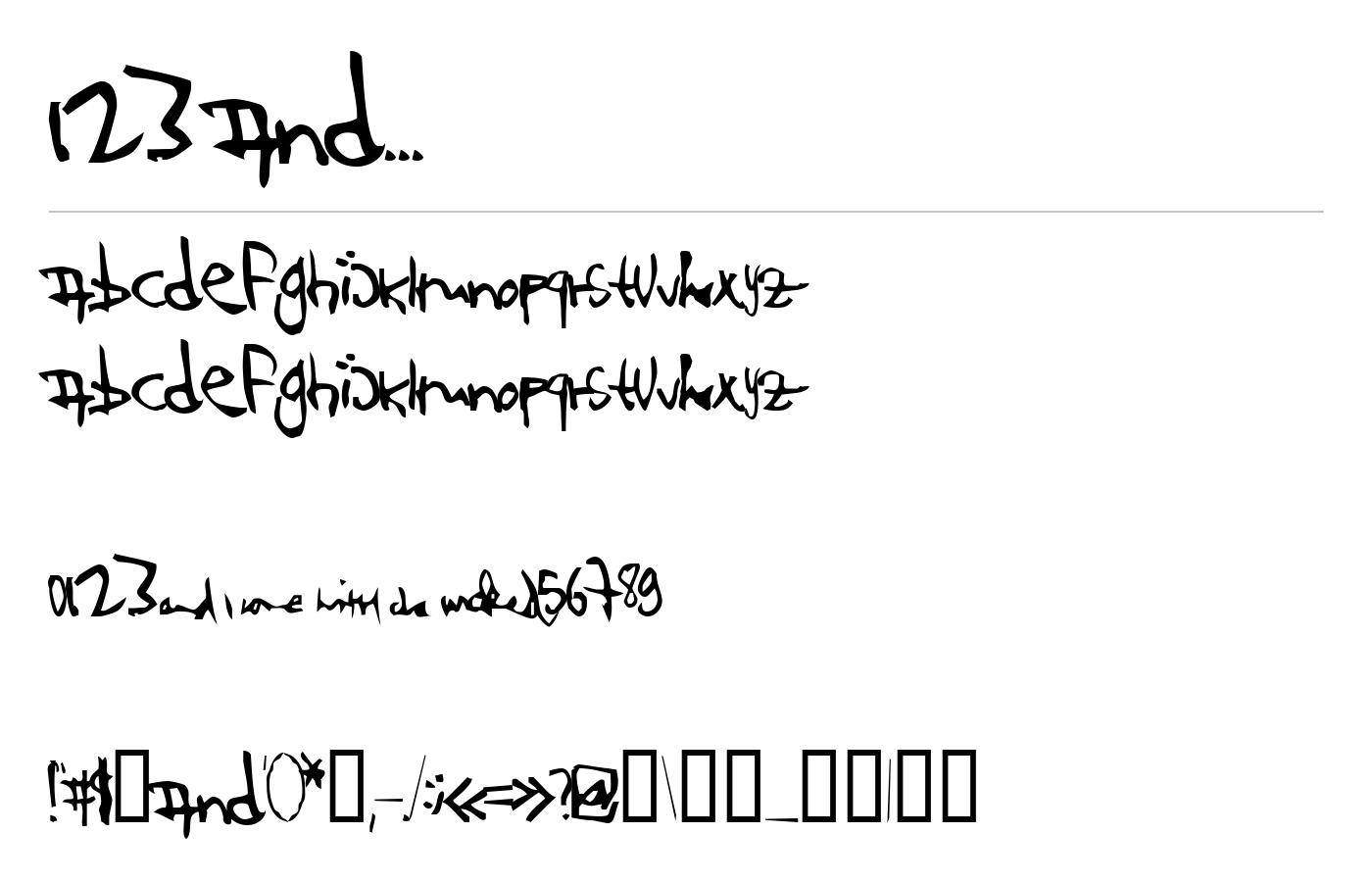
123 and... Font is a highly stylized, handwritten script with a quirky, irregular character structure that feels playful and spontaneous. Its uneven stroke widths and organic shapes make it ideal for creative, informal designs where a personal, artistic touch is desired, such as greeting cards, posters, or youth-oriented branding. This font shines best in display sizes where its distinctive personality can clearly come across.
123 and... Font
About 123 and... Font